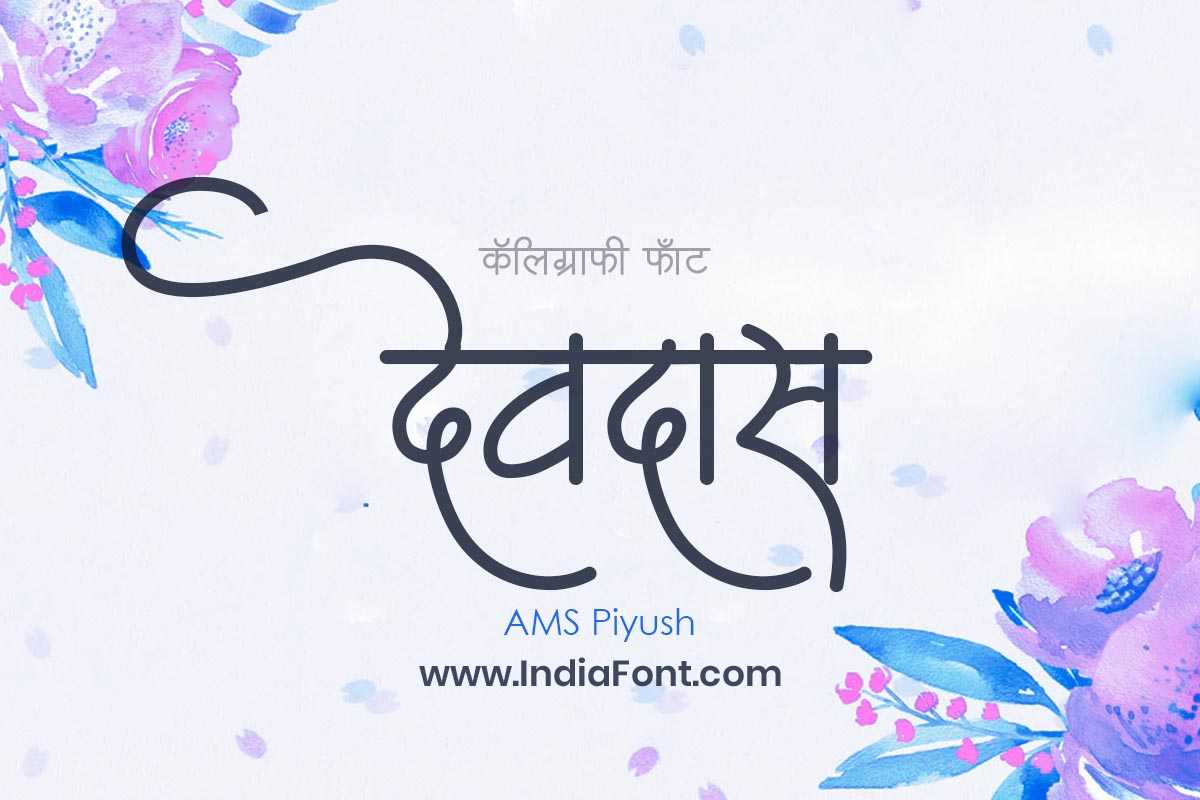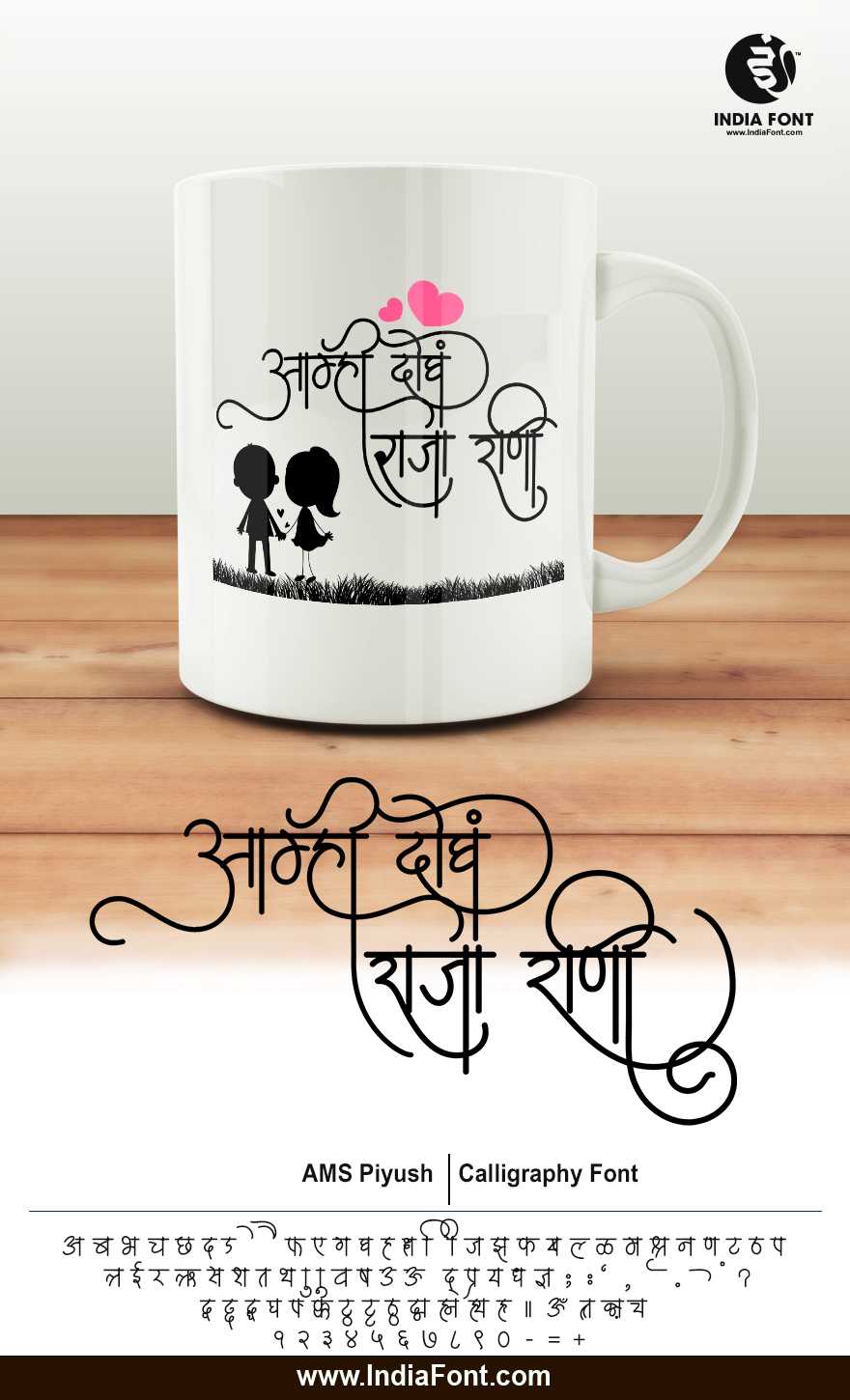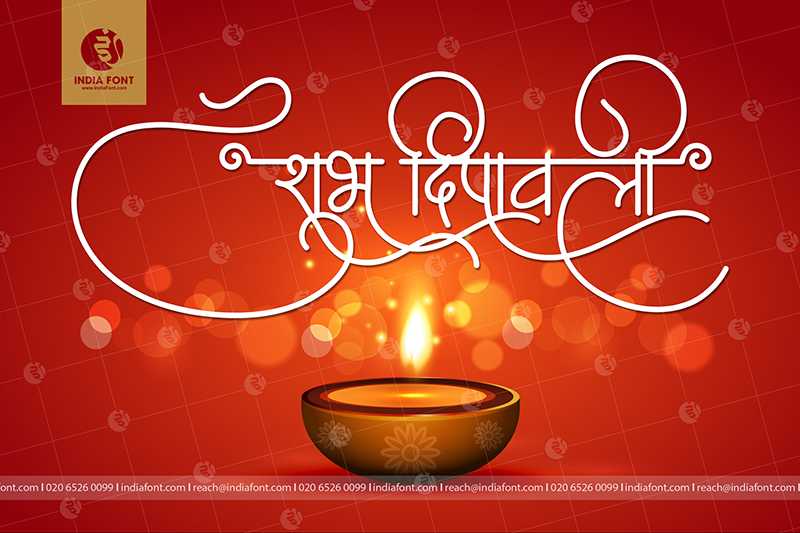
AMS Piyush
Master AMS Piyush: elegant calligraphy font capturing handwritten artistry. Perfect for refined Hindi & Marathi designs with flowing sophistication.
AMS Piyush Design Inspiration
Explore how AMS Piyush looks in real-world applications and get inspired for your next project
AMS Piyush font design inspiration and usage example
AMS Piyush typography showcase and design sample
AMS Piyush typography showcase and inspiration sample
AMS Piyush font design inspiration and usage example
AMS Piyush typography showcase and design sample
About AMS Piyush Font
Master AMS Piyush: elegant calligraphy font capturing handwritten artistry. Perfect for refined Hindi & Marathi designs with flowing sophistication. This calligraphy font combines elegance with functionality, making it perfect for various design applications.
AMS Piyush is a professionally crafted calligraphy typeface that brings clarity and style to your projects. Designed with attention to detail, it supports hindi and marathi characters flawlessly.
Whether you're working on wedding-materials, invitations, headers, or other creative projects, AMS Piyush delivers consistent performance across both digital and print media. This carefully designed typeface ensures readability and visual appeal in all your design work.
Why Choose AMS Piyush?
AMS Piyush excels in various design scenarios. Here are the most suitable applications:
About AMS Piyush Typography Style
AMS Piyush is a professionally crafted calligraphy font that exemplifies modern Hindi typography design. This free font is perfect for designers seeking professional branding and logo design projects.
Available in 1 weight and supporting hindi, marathi scripts, AMS Piyush offers exceptional versatility for both digital and print media. Whether you're working on wedding-materials, invitations, headers, this carefully designed typeface ensures consistent quality and professional results across all your typography projects.